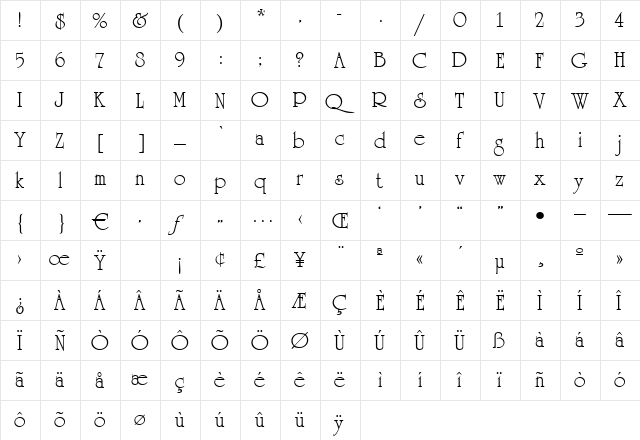
Quirinal Regular
Design Context for Quirinal Typeface
Quirinal takes a measured approach to typography — its balanced proportions and neutral character make it a reliable workhorse for both digital and print work.